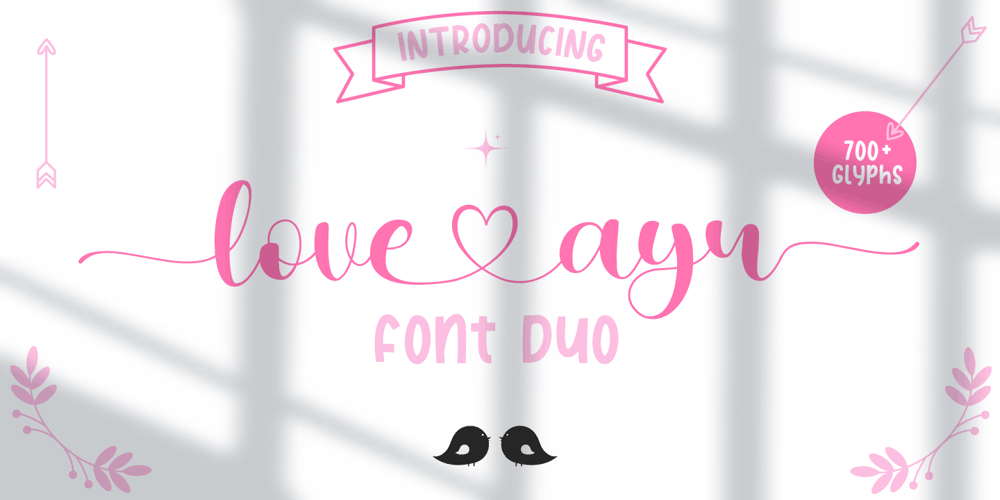
Love Ayu Font Family was designed by Mohamad Candirah and published by MC Creative. Love Ayu contains 2 styles and family package options. Love Ayu a new modern & fresh calligraphy font with a lot of stylistic alternate make this font looks natural, elegant, and perfect for any awesome projects.Love Ayu is perfect for many different project such as wedding designs, logos & branding, invitation, stationery, social media posts, advertisements, product packaging, product designs, label, photography, watermark, special events or anything.What’s Included : Standard Glyphs Ligature Works on PC & Mac Simple installations Accessible in the Adobe Illustrator, Adobe Photoshop, Adobe InDesign, even work on Microsoft Word. PUA Encoded Characters – Fully accessible without additional design software. Fonts include multilingual support for; ä ö ü Ä Ö Ü ß ¿ ¡ Thank you for your purchase!Hope you enjoy with our font!